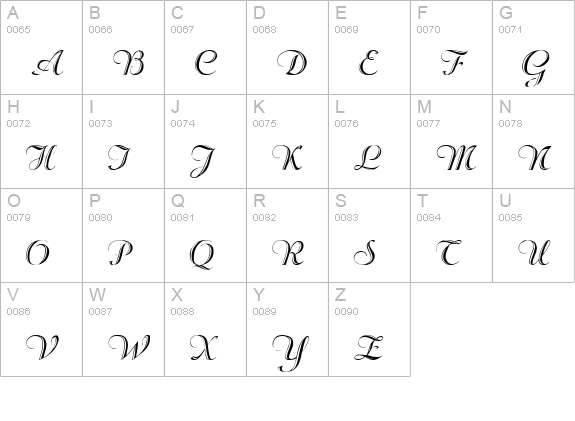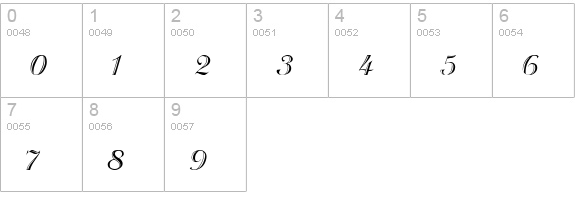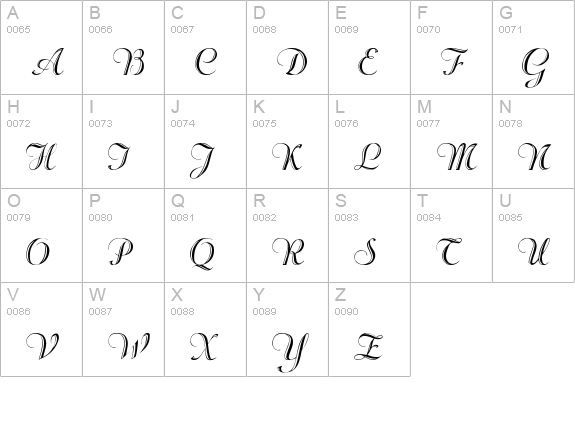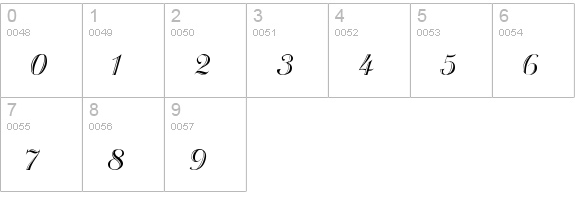
InviteEngraved Normal Font Details
InviteEngraved Normal is the standard, neutral variant in the InviteEngraved typeface family \xE2\x80\x94 well suited to general body text, paragraphs, and standard typographic work.
InviteEngraved Normal font is a stunning and elegant typeface that embodies the essence of sophistication and refinement. With its delicate lines and intricate details, this font is perfect for adding a touch of elegance to any design project. The timeless beauty of InviteEngraved Normal font is enhanced by its clean and crisp letterforms, making it a versatile choice for both print and digital applications. Whether you are designing wedding invitations, creating elegant logos, or crafting exquisite packaging, this font will elevate your design to new heights. One of the best things about InviteEngraved Normal font is that it is freely available to download at FontsMarket.com. This means that you can use this exceptional font in your projects without any cost. It's a fantastic opportunity to add a touch of sophistication to your designs without breaking the bank. Download InviteEngraved Normal font today from FontsMarket.com and let your creativity soar. Whether you're a professional designer or a passionate hobbyist, this font will undoubtedly become a valuable addition to your font collection. Don't miss out on the opportunity to create stunning designs with this remarkable font.